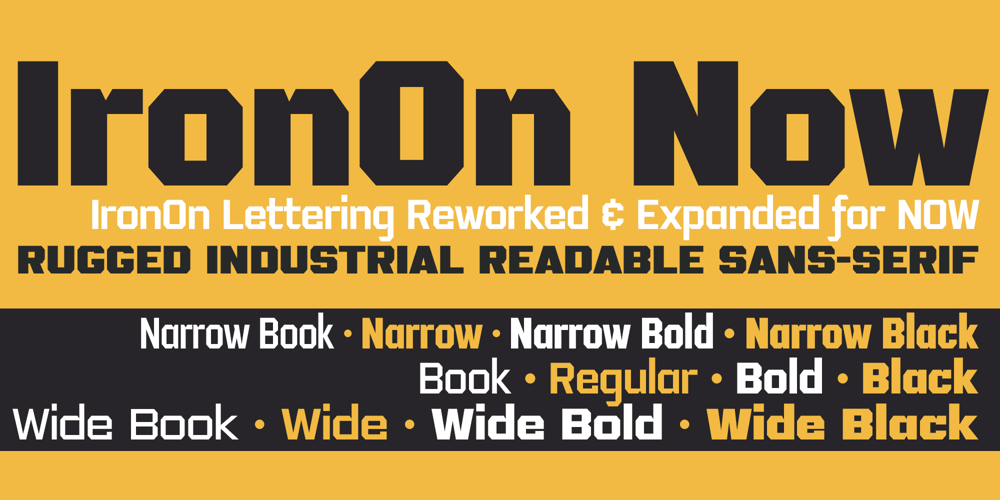
Iron On Now Font Family was designed by Sawyer Hume and published by Fontasmic. Iron On Now contains 12 styles and family package options. An evolved expansion of the IronOn Family, IronOn Now takes the original typestyles created back in 2008 and gets a little overhaul while also expanding the iron-on transfer lettering of the 70’s typestyle to a much larger and robust font family.Three widths, four weights per width takes IronOn Now to a whole other level, allow for much more range in design capabilities. Ideal for packaging, T-shirts, advertising, or for industrial applications like signage and newsletter headlines, this powerhouse font family offers a unique rigid flexibility.